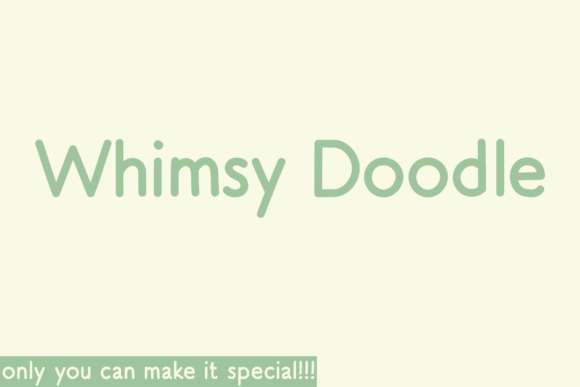
**Introducing Whimsy Doodle: The Ultimate Font for Capturing the Essence of Playful Innocence**
In a world where words hold immense power to convey emotions and ideas, the font you choose becomes an integral part of your storytelling journey. Allow us to introduce you to Whimsy Doodle, a captivating sans serif font that embodies the essence of playful innocence, inviting you to add a touch of magic to your creative endeavors.
Whimsy Doodle is the brainchild of the talented Hanna Bie, a renowned font designer known for her ability to capture the nuances of human emotions through her typographic creations. With Whimsy Doodle, she has crafted a font that dances across your screen like a playful melody, evoking a sense of childlike wonder and boundless imagination.
**Unleash Your Creativity with Endless Possibilities**
Whether you're creating personalized baby onesies, heartwarming greeting cards, or eye-catching social media graphics, Whimsy Doodle becomes your trusted companion, effortlessly adding a touch of charm and whimsy to your designs. Its versatility extends beyond physical products, making it a perfect choice for digital creations such as website headers, blog post titles, and eye-catching email campaigns.
**Embrace the Magic of Whimsy Doodle**
Step into a world where imagination knows no bounds, where every letter dances with joy and every word paints a picture of playful delight. With Whimsy Doodle by your side, you'll discover a font that:
* **Captures the Essence of Playful Innocence:** Its playful curves and whimsical shapes evoke a sense of nostalgia, reminding you of carefree days filled with laughter and imagination.
* **Adds a Touch of Magic to Your Designs:** Transform ordinary words into enchanting messages, captivating your audience with its unique charm and personality.
* **Versatile Across a Spectrum of Creative Projects:** From baby onesies to social media posts, Whimsy Doodle seamlessly adapts to your creative vision, adding a touch of playful elegance to any project.
* **Brings Your Ideas to Life with Joy and Wonder:** Let your words dance across the page, carrying with them a sense of boundless joy and childlike wonder.
Embrace the magic of Whimsy Doodle today and embark on a creative journey filled with endless possibilities. Let your imagination soar, let your words flow with playful abandon, and let Whimsy Doodle be your guide through the enchanting realm of creativity.